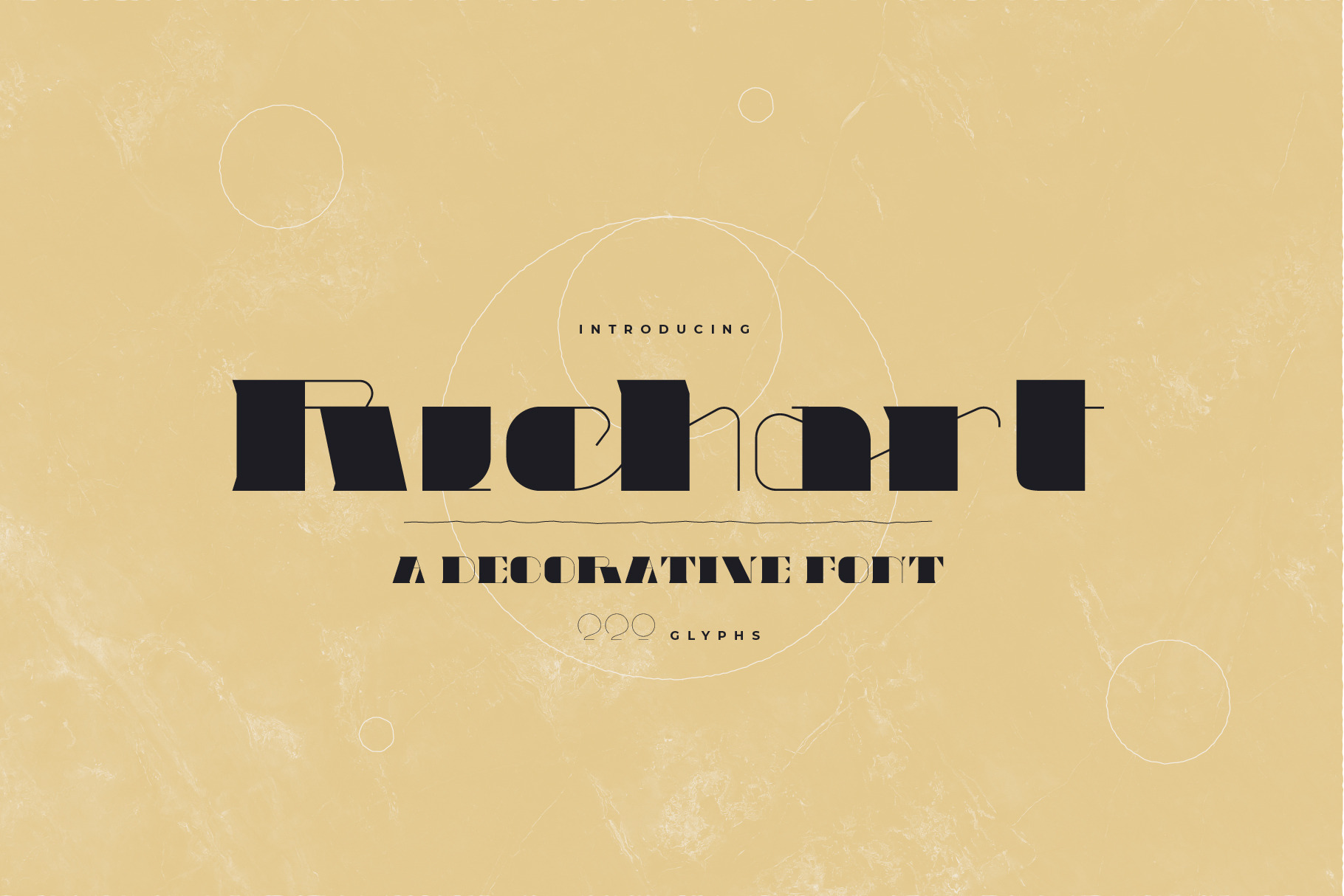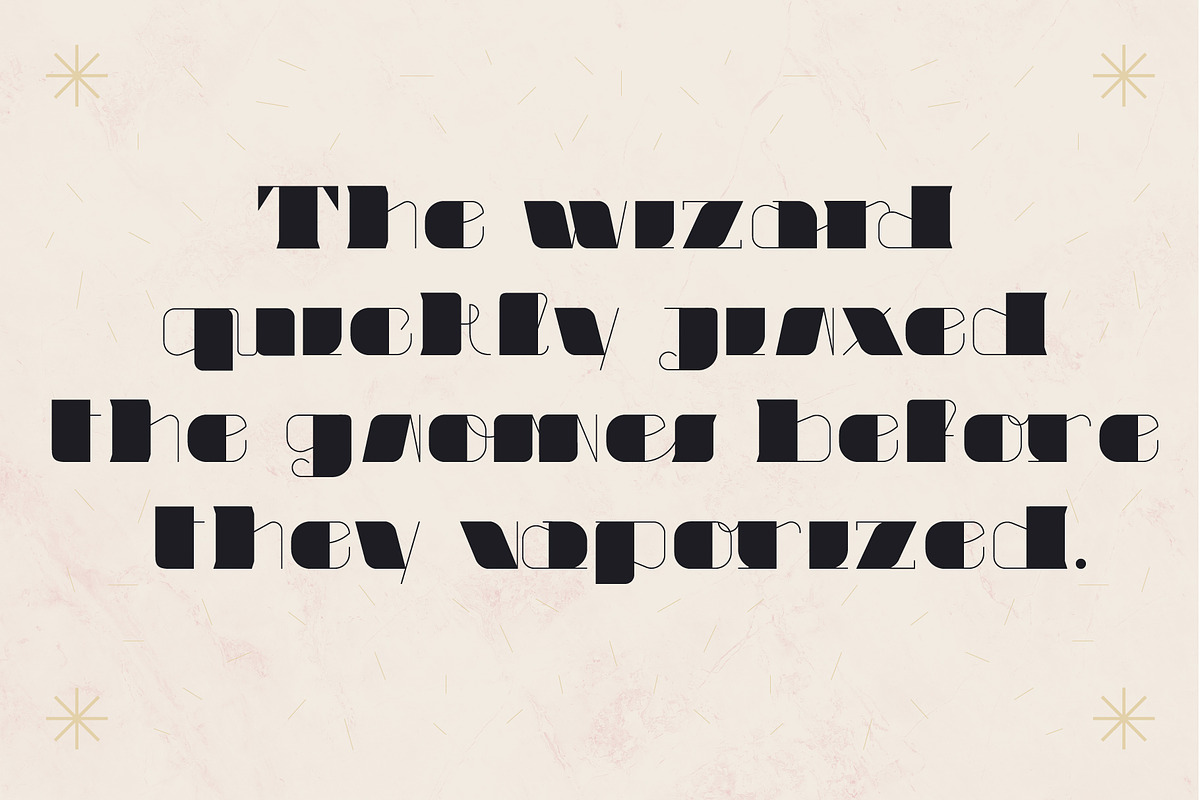
Richart - Decorative Font
Richart is an elegant and decorative font, with a great deal of glyphs, more than 220!
The font includes special uppercase & lowercase letters, numbers and beautiful ligatures
The font is great for logo design, editorial print, packaging or invitation cards.